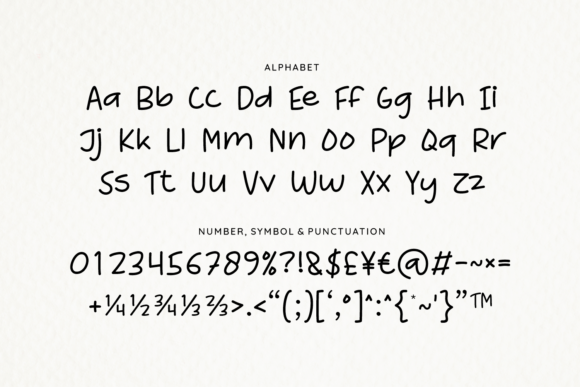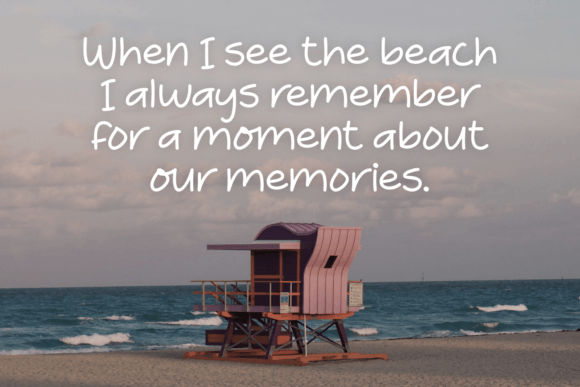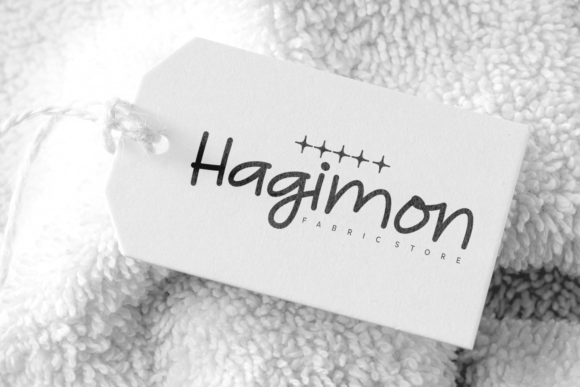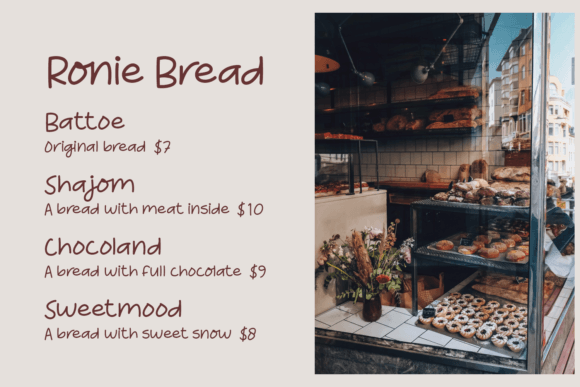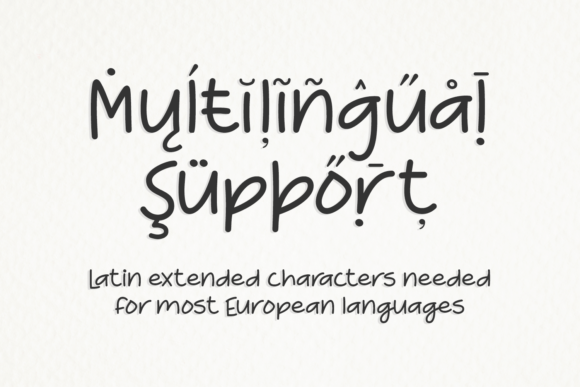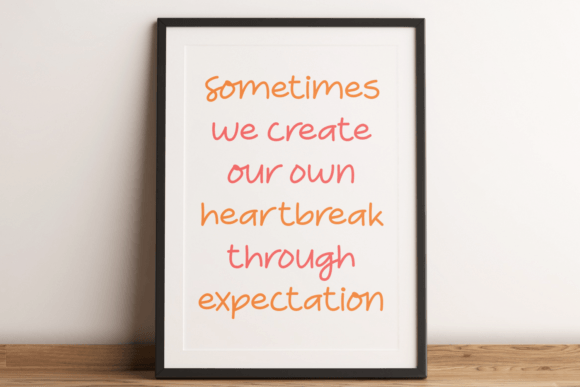
The Awesome Notes Font: A Fun and Casual Handwritten Delight
I’ll never forget the time I was working on a project for a client who wanted a fun and playful vibe. I had spent hours scouring the internet for the perfect font, but nothing seemed quite right. That was until I stumbled upon the Awesome Notes font. It was like a breath of fresh air – a beautiful, handwritten font that perfectly captured the casual and creative feel my client was looking for.
From that day on, Awesome Notes has been my go-to font for any project that needs a personal touch. But what makes it so special? In this article, we’ll dive into the world of Awesome Notes and explore its features, uses, and benefits.
- ✨ Unique and playful personality: Awesome Notes has a one-of-a-kind feel that’s perfect for adding a personal touch to any project.
- ✅ Highly legible: Despite its handwritten nature, Awesome Notes is surprisingly easy to read, even at small sizes.
- 💕 Versatile: Whether you’re designing a greeting card, crafting a digital graphic, or creating a presentation, Awesome Notes is the perfect choice.
While Awesome Notes is an amazing font, it’s not perfect. Here are a few things to keep in mind:
- 🤔 Limited formal use: Due to its casual nature, Awesome Notes may not be the best choice for formal or professional projects.
- ⚠️ Some letters may require adjustment: As with any handwritten font, some letters may need to be adjusted to ensure proper spacing and alignment.
The Story Behind Awesome Notes
While the true story behind Awesome Notes may be unknown, it’s easy to imagine a designer sitting down with a pen and paper, looking to create a font that captures the essence of casual creativity. Perhaps they wanted to create a font that would make people smile, or one that would add a touch of whimsy to any project. Whatever the inspiration, Awesome Notes is a true gem in the world of typography.
A: Awesome Notes is perfect for digital designs, such as social media graphics, blog posts, and presentations. Try pairing it with bold colors and playful graphics for a fun and eye-catching design.
Q: Is Awesome Notes suitable for formal or professional projects?
A: While Awesome Notes is an amazing font, it may not be the best choice for formal or professional projects due to its casual nature. Consider using a more formal font for these types of projects.